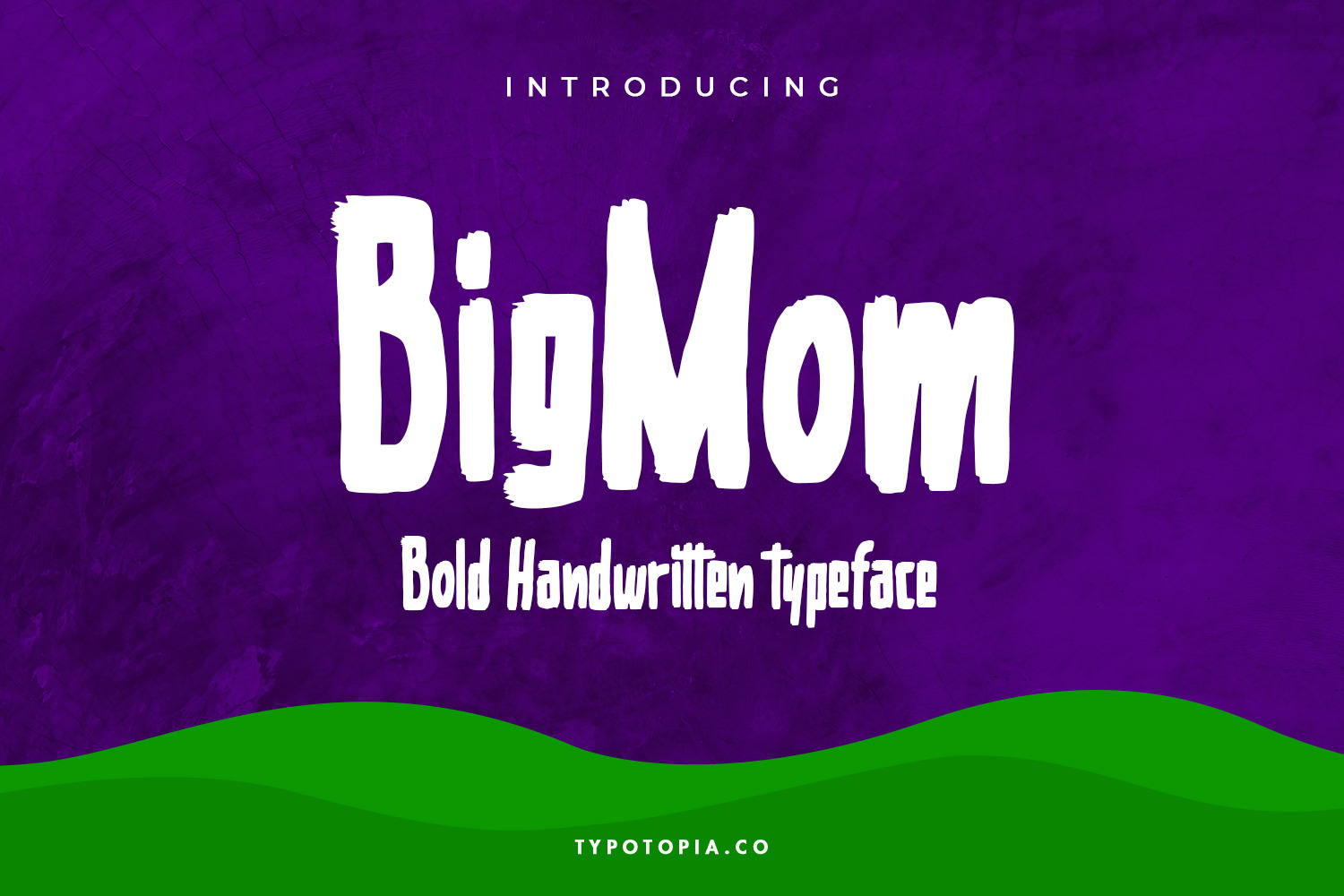
Bigmom Bold Handwritten Typeface
Introducing, Bigmom an incredibly Unique and Interesting Display Font!!
Bigmom is an incredibly Unique and Interesting Display Font for your Design that is absolutely great for your next creative project such as logos, printed quotes, invitations, cards, product packaging, headers, Logotype, Letterhead, Poster, Apparel Design, Label, and etc.
This Versatile Font includes also support a Multilingual Characters. Making this Font a Swiss Army knife in your Font Library. It's extremely fun to use as each word can be transformed to your liking.